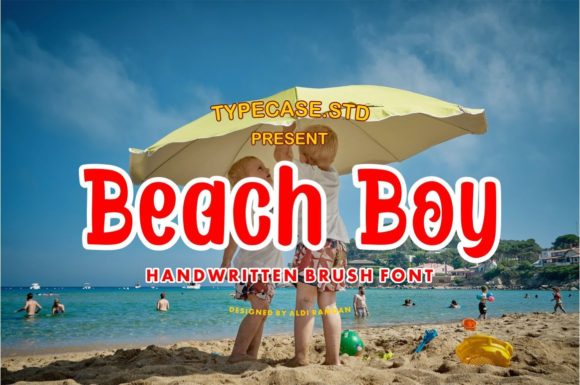
Unlock the beauty of creativity with Beach Boy Font, a remarkable script font family that combines modern elegance and natural charm. Discover a world of design possibilities with this stunning font, crafted by Typecase to elevate your projects to new heights.
Immerse yourself in the beauty of Beach Boy's captivating characters, meticulously designed to evoke a sense of sophistication and playfulness. This versatile font is the perfect choice for a wide range of design endeavors, from branding projects and logos to social media posts and advertisements. Its versatility shines through in product packaging and product designs, effortlessly adding a touch of charm to your creations.
Whether you're designing labels, photography, or watermarks, Beach Boy Font will bring your vision to life with its distinctive handwritten touch. Elevate your invitations and stationery with a personal touch that will leave a lasting impression. Unleash your creativity and explore the limitless possibilities that await you with Beach Boy Font.